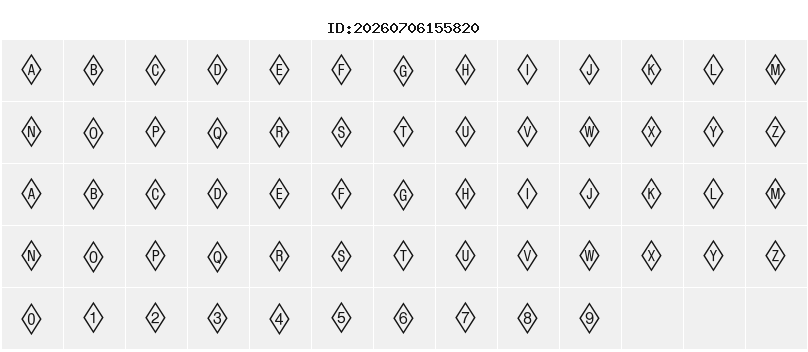
About Diamond Positive Std.otf
Diamond Positive Std.otf is a modern, elegant sans-serif font designed for ultimate readability and visual harmony. Perfect for branding, headlines, web design, and print materials.